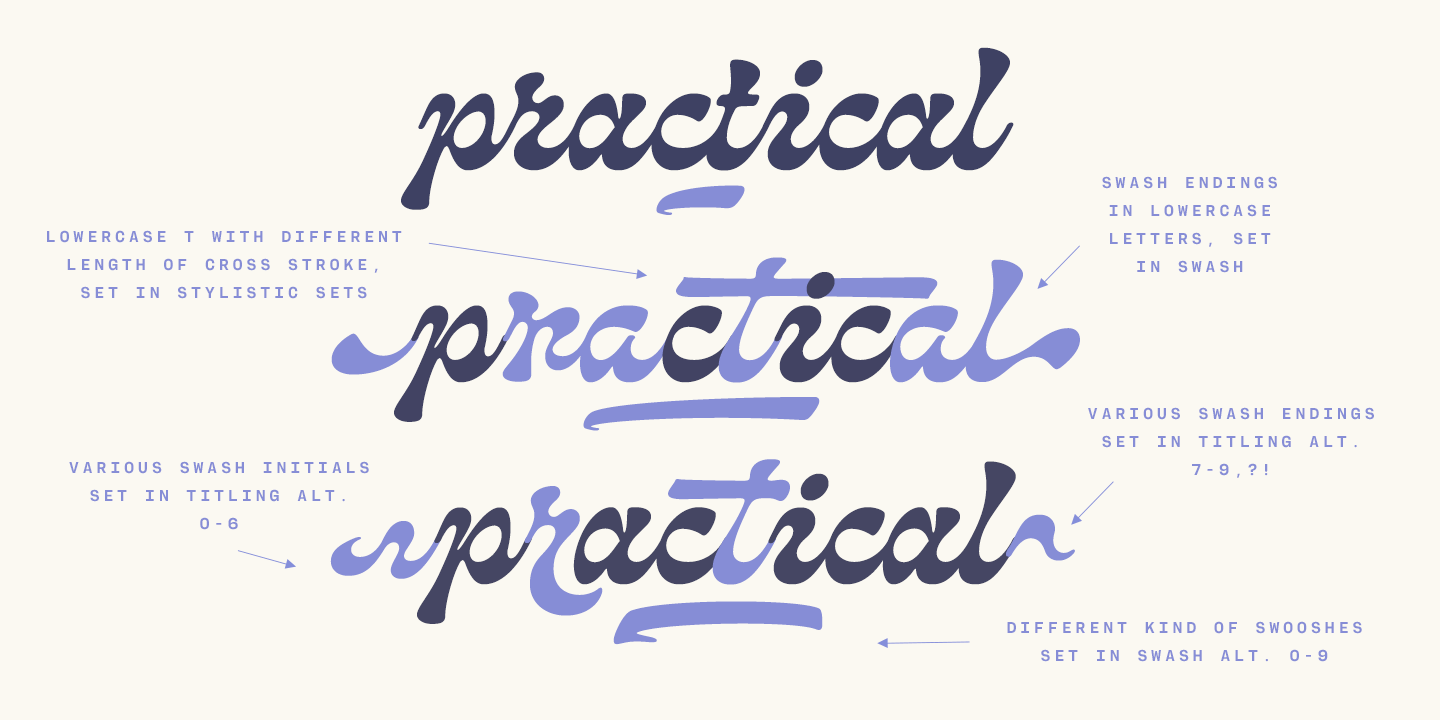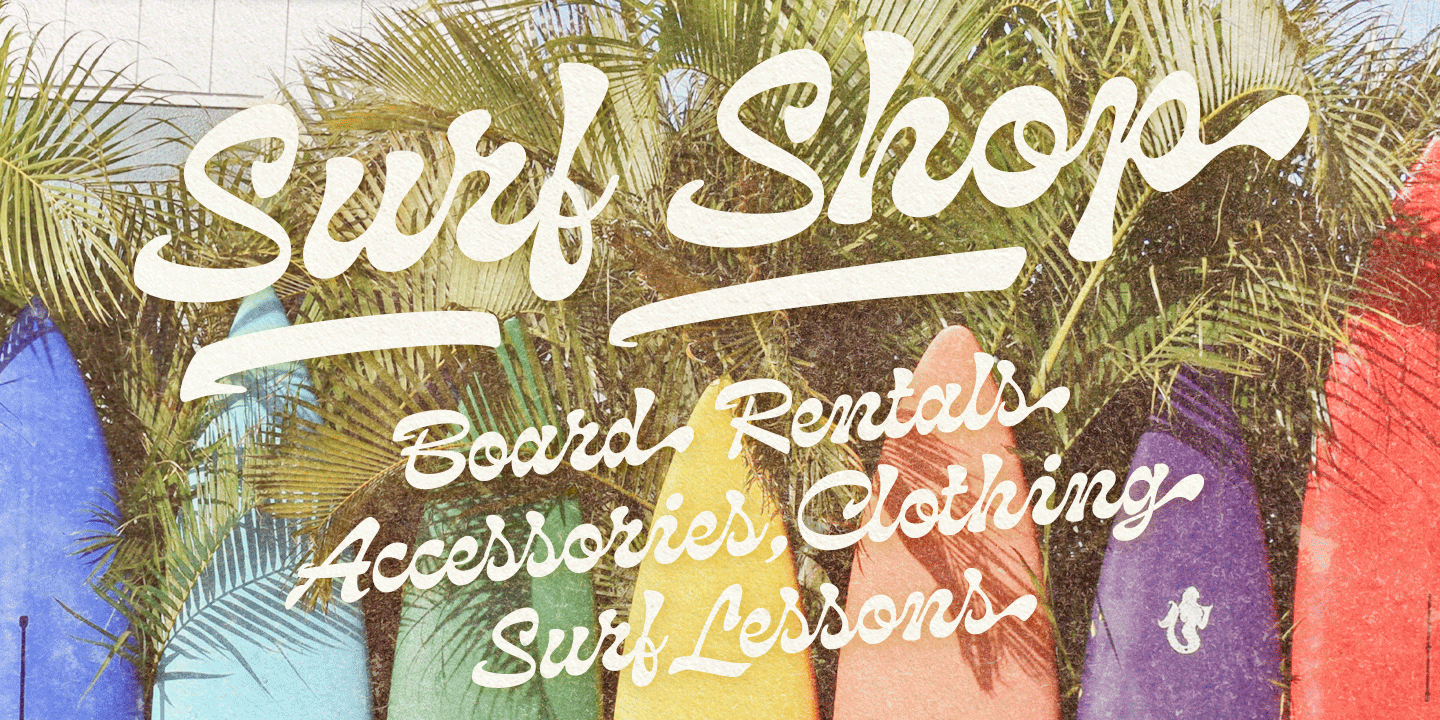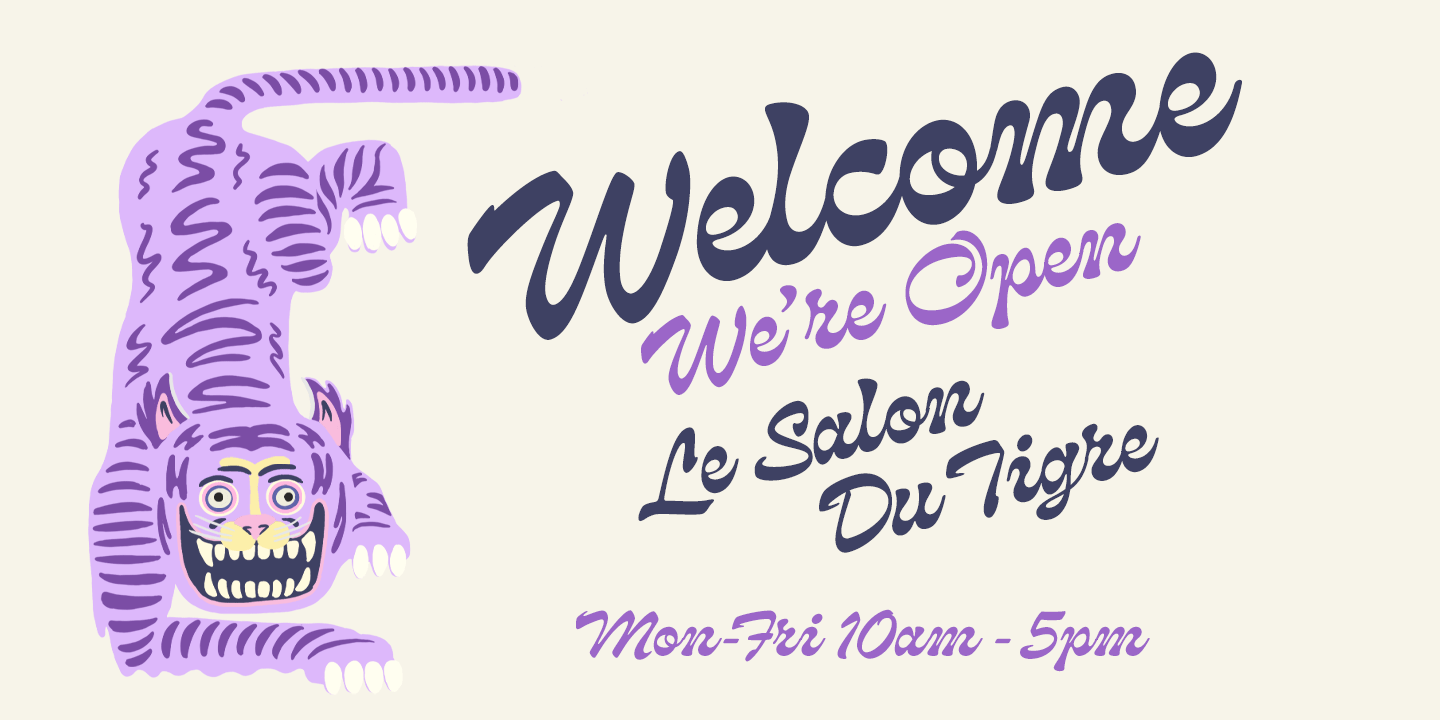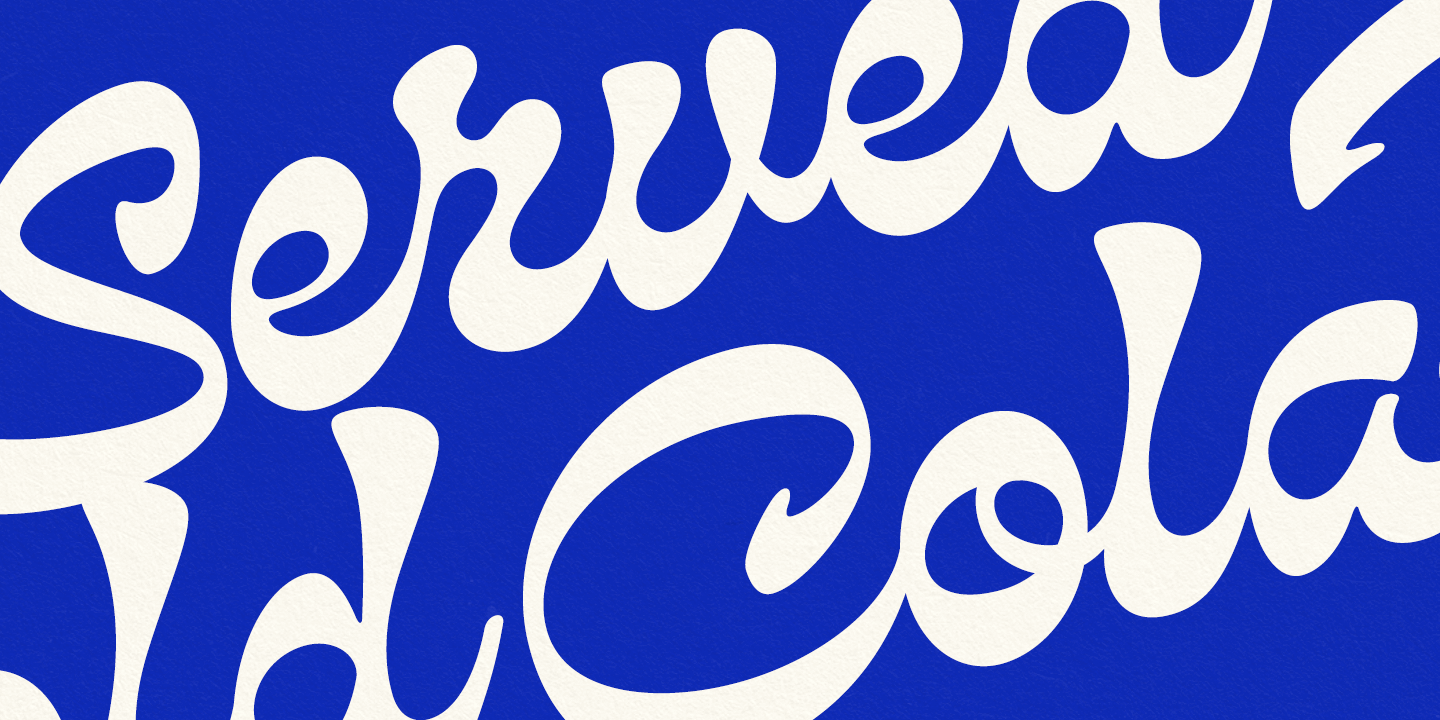
About Pacific Tiger
Pacific Tiger is a reverse-contrast brush script with a mellow and smooth summer vibe. Feel the exotic vibe and vigor as you type with Pacific Tiger. It's a distinctive and stylish choice for packaging, labels, posters, and headlines. Pacific Tiger…